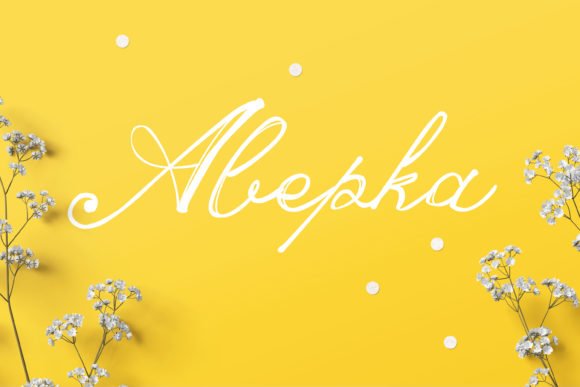
Unleash Your Creativity with the Abepka Font
You know that moment when you’re brainstorming a new design project and you need the perfect font to bring your vision to life? The one that adds a touch of elegance and whimsy to your creation? For designers and creatives, finding the right font can make all the difference in making their ideas truly stand out.
Enter the Abepka Font, a sweet and soft hand-lettered script font that’s perfect for Instagram posts, DIY projects, and any other creative endeavor. With its unique charm and character, Abepka Font is sure to elevate your designs and make them truly special. Whether you’re a seasoned designer or just starting out, this font is a valuable addition to your toolkit.
Abepka Font Key Features
- Font Family: Abepka is a unique script font with a handwritten feel, ideal for creative projects.
- Character Set: Supports a wide range of languages, including Latin, Cyrillic, and Greek alphabets, making it suitable for multilingual designs.
- Unique Characteristics: Features organic, flowing lines and subtle imperfections to create a natural, handwritten look.
Abepka Font Review
Overall, I think the Abepka font is a unique addition to any design project. ✨ One of its strongest features is its ability to convey a sense of playfulness and friendliness, making it perfect for children’s books, educational materials, and even advertising campaigns.
Here are some of the things that I think work well with this font:
- ✨ Highly legible: The Abepka font is very easy to read, even at small font sizes.
- ✨ Versatile: It can be used for both body text and headings, making it a great choice for multi-page documents.
- ✨ Fun and playful: As I mentioned earlier, the Abepka font has a fun and friendly vibe that can really make a design stand out.
- ⚠️ Limited font sizes: While the Abepka font is legible at most font sizes, it can start to look a bit pixelated at very small sizes.
- ⚠️ Limited language support: The Abepka font may not support as many languages as some other fonts, which can be a limitation for international designs.
Overall, I think the Abepka font is a great choice for designers who want to add a bit of whimsy and fun to their designs. Just be aware of its limitations and make sure to use it at the right font sizes and in the right contexts.
Tips for Getting the Most Out of Abepka Font
Use Abepka Font for creating visually appealing titles and headings.
Pair Abepka Font with other fonts to create a unique and eye-catching design.
Experiment with different font sizes and styles to create a dynamic and engaging design.
Abepka Font is suitable for creating titles, headings, and logos for brands and businesses.
Use Abepka Font for creating social media graphics, flyers, and brochures.